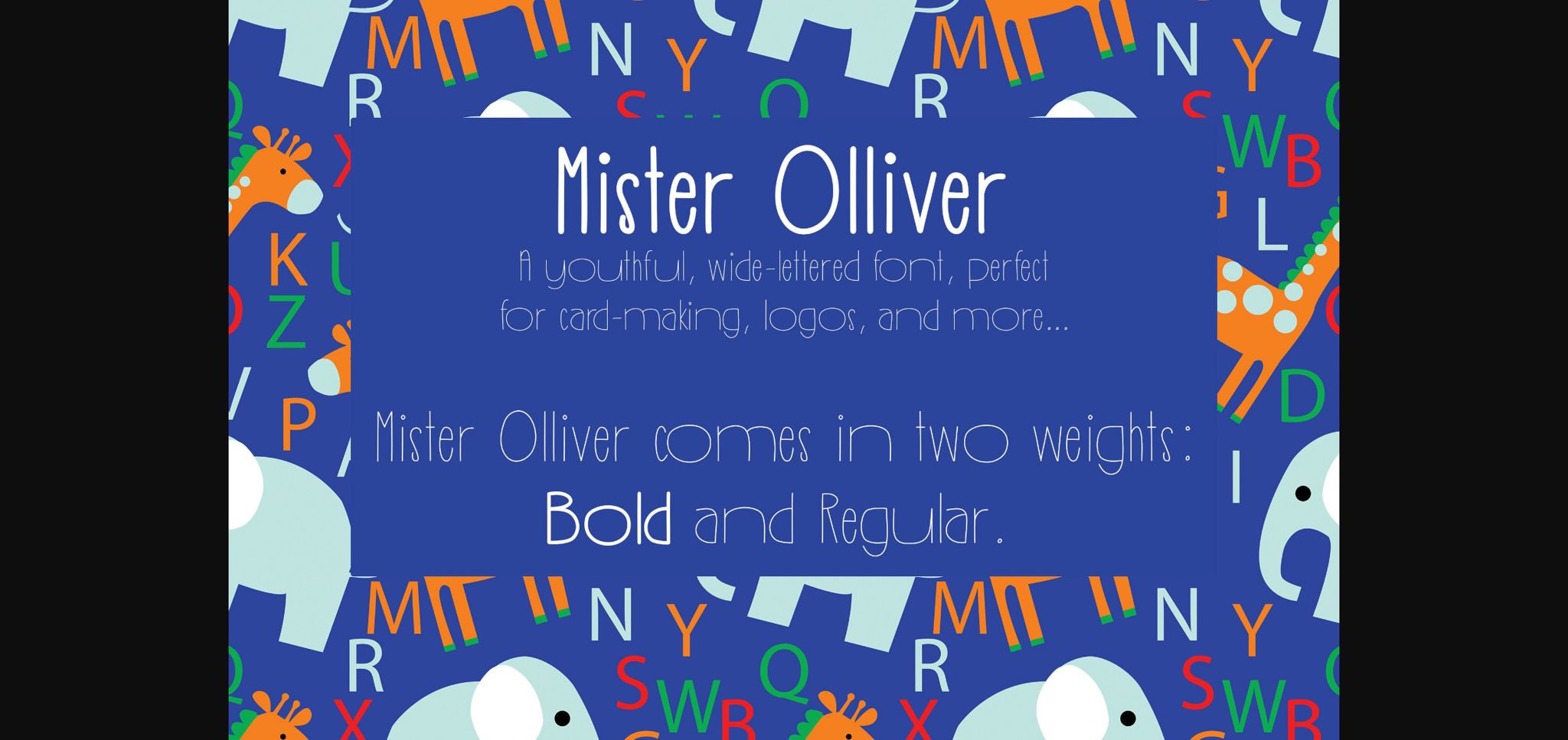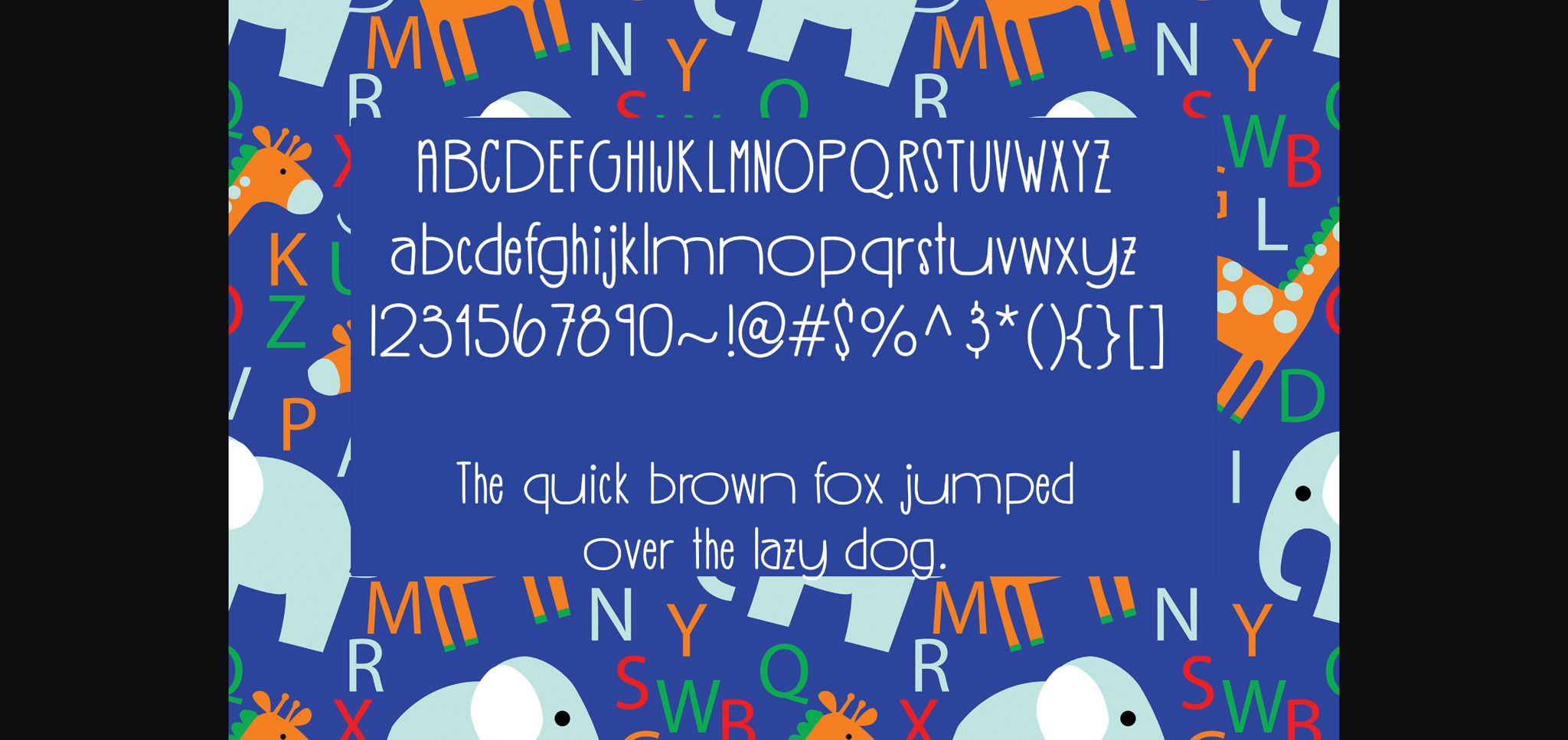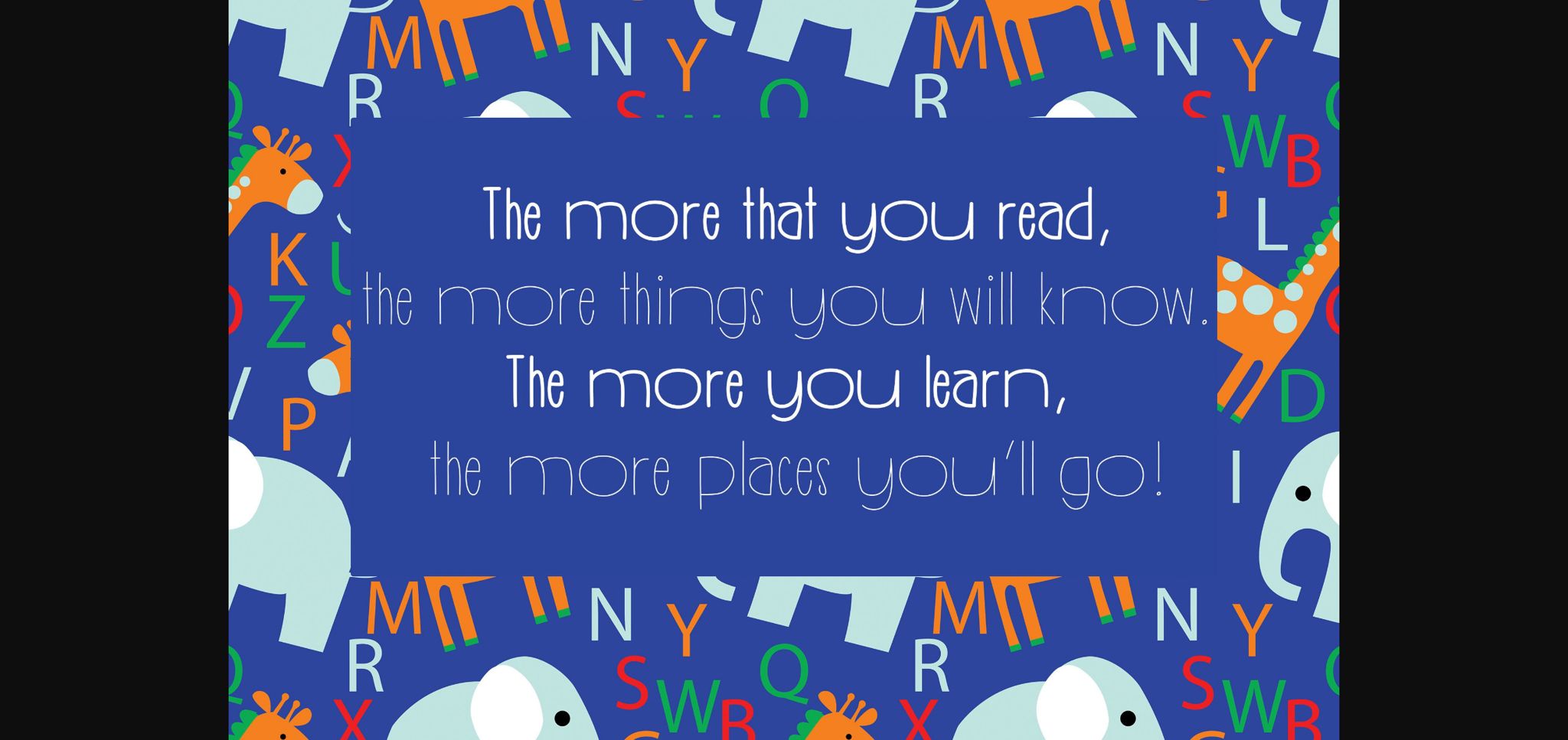
Mister Olliver is a youthful sans serif font perfect for all your kid-friendly design needs. This font is great for greeting cards, invitations, posters, t-shirt designs, and more!